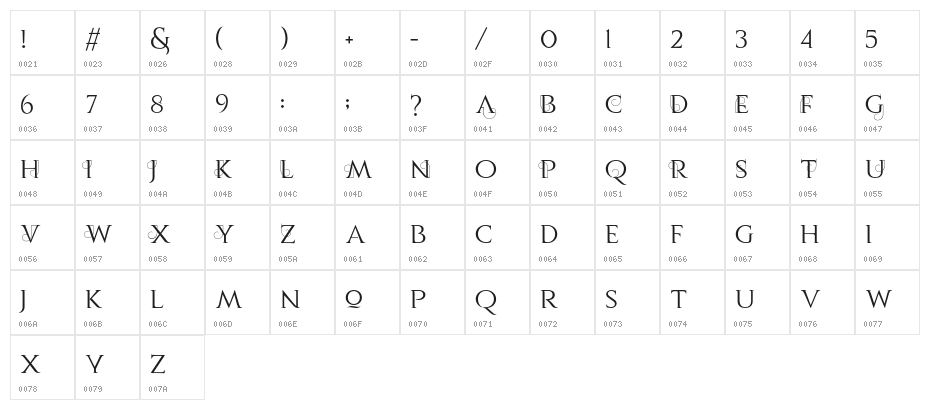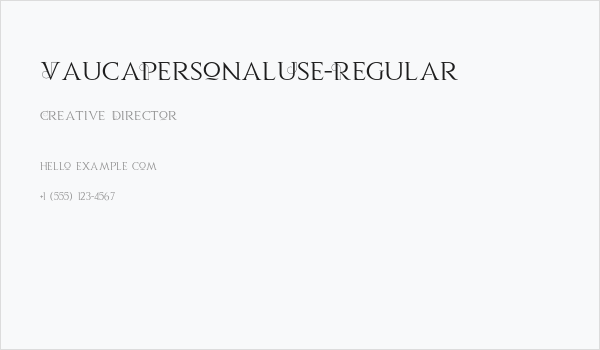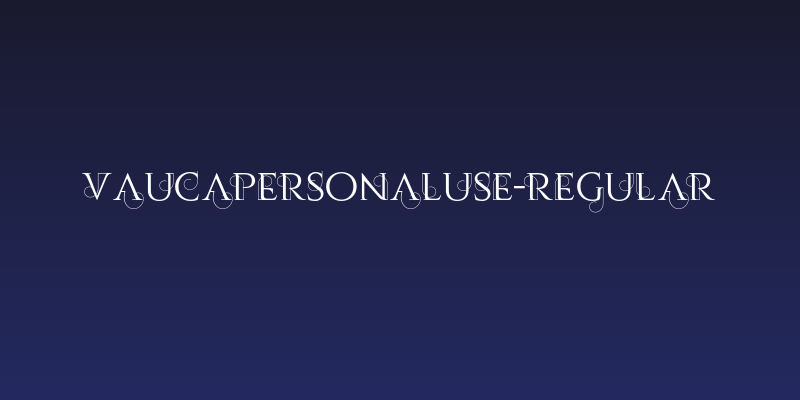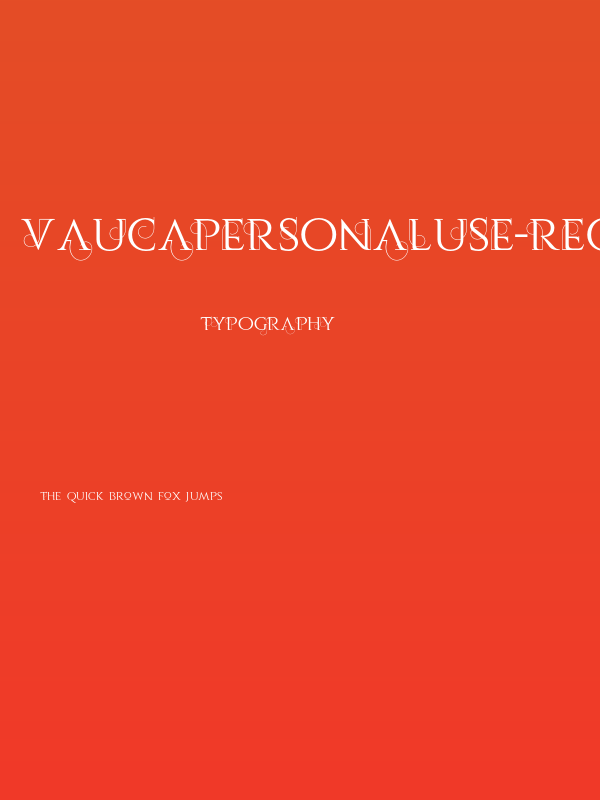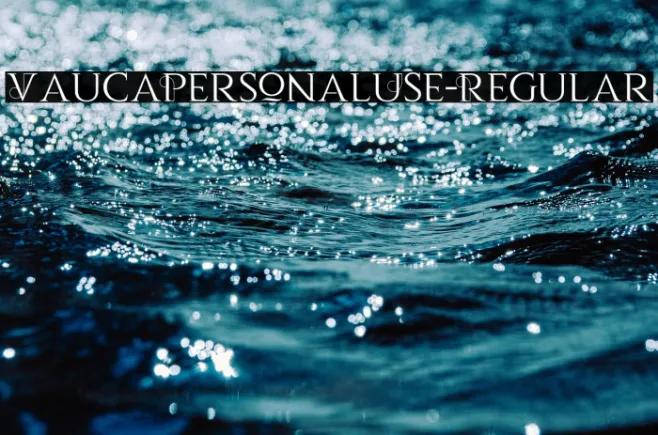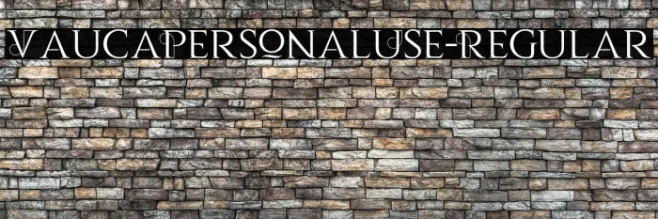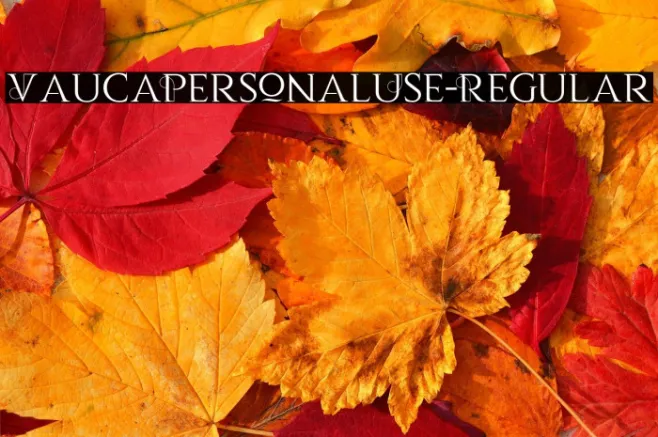
VaucaPersonalUse-Regular Font
VaucaPersonalUse-Regular Description
This font features a sophisticated and elegant design with a blend of classic and modern elements. The uppercase letters are adorned with delicate swashes and flourishes, adding a touch of luxury and refinement. The lowercase letters maintain a clean and stylish appearance, complementing the ornate uppercase. The numerals are crafted with precision, ensuring readability while maintaining the font's overall aesthetic. Special characters are thoughtfully designed to match the font's elegant style, making it suitable for a variety of creative applications.
| Proposed Projects | Ideal for wedding invitations, luxury branding, high-end product packaging, and editorial design. |